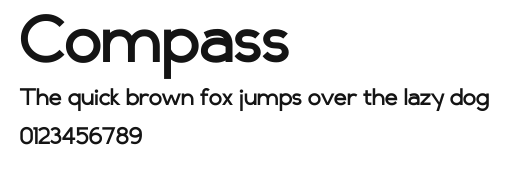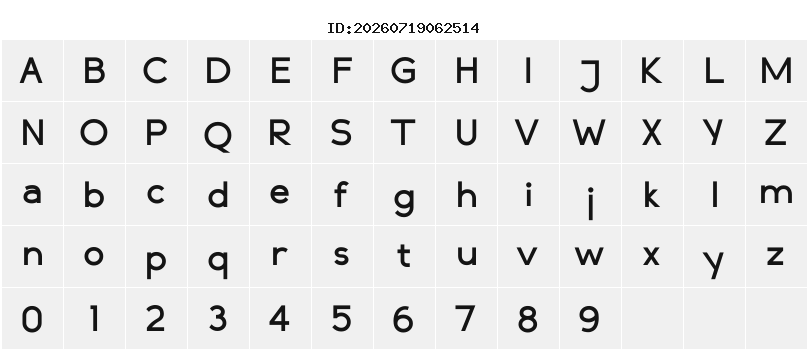
Compass Preview
• Font Name: Compass
• Full Font Name: Compass Bold
About Compass.ttf
Compass.ttf is a modern, elegant sans-serif font designed for ultimate readability and visual harmony. Perfect for branding, headlines, web design, and print materials.